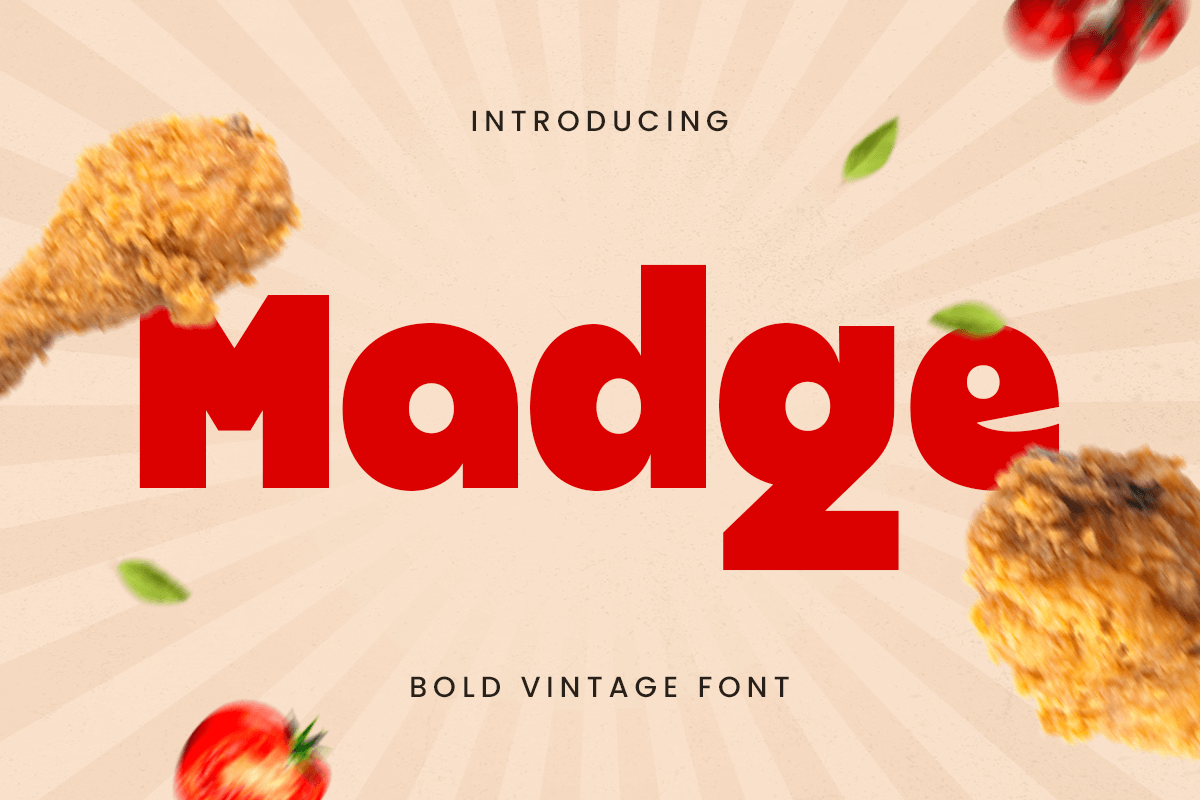
Madge
-Bold Vintage FontMadge - Bold Vintage Font
Madge captures the essence of vintage aesthetics with its bold, timeless letterforms. Inspired by retro styles, it delivers a perfect blend of classic charm and modern usability.
Ideal for Retro-Inspired Projects
Perfect for logos, headlines, branding, and packaging, Madge brings authenticity and character to your designs. Its bold nature makes your message stand out while evoking a nostalgic feel.
Designed for Bold Statements
Madge is not just a font; it's an artistic tool that empowers creators to craft impactful designs. Its vintage appeal ensures your projects shine with unmatched elegance and style.